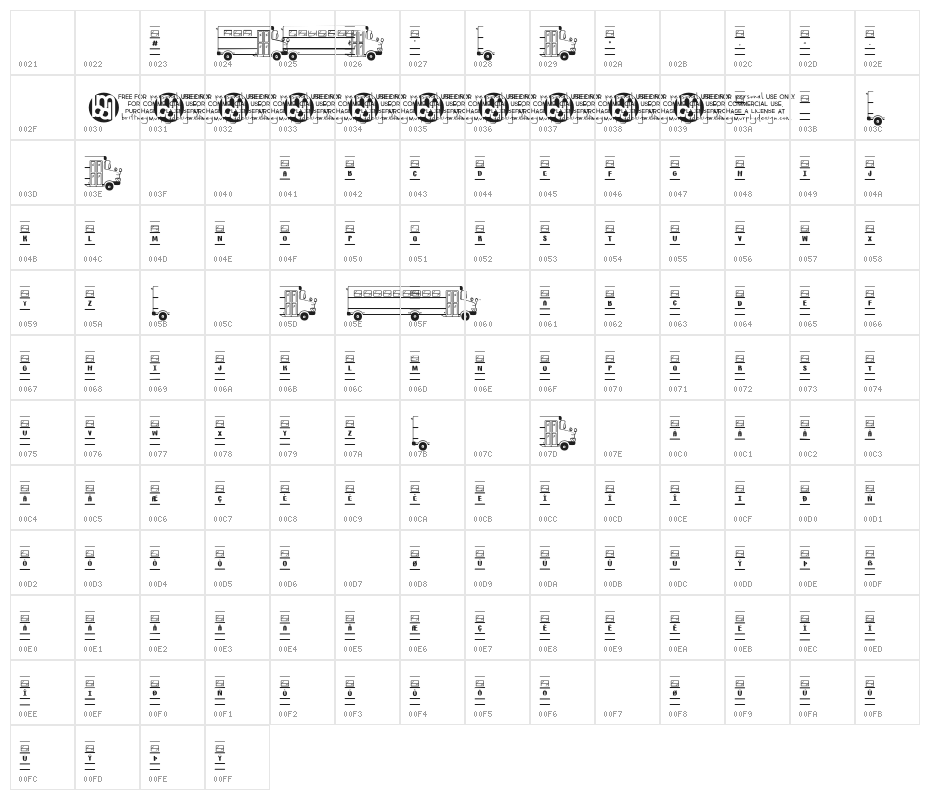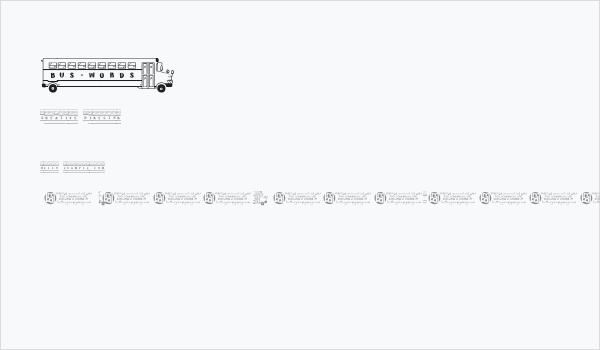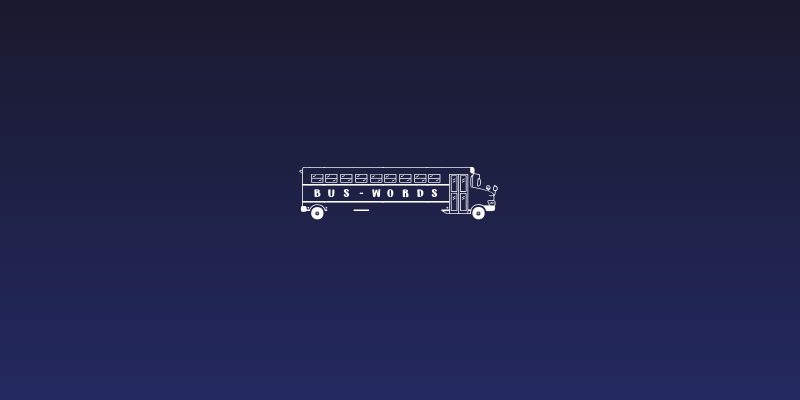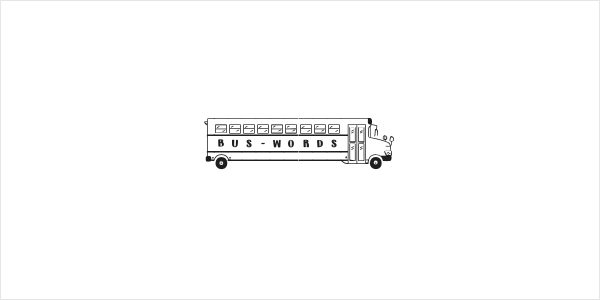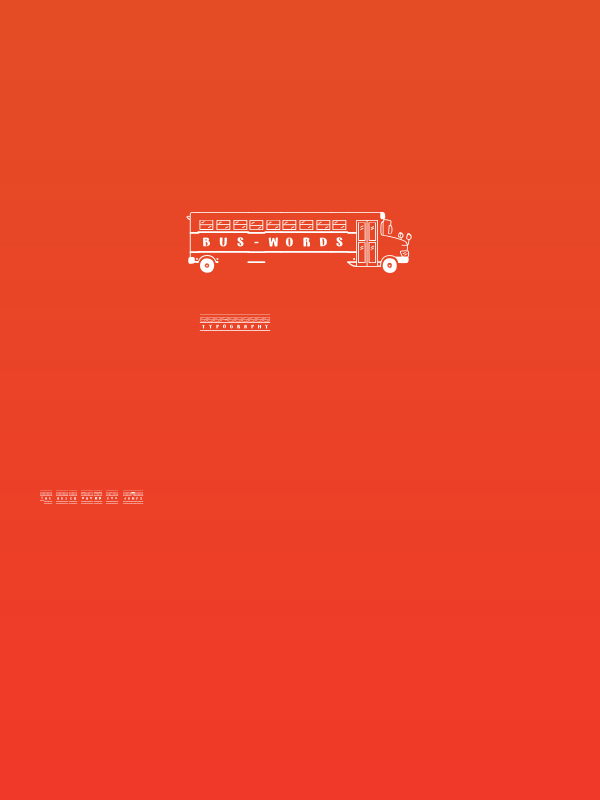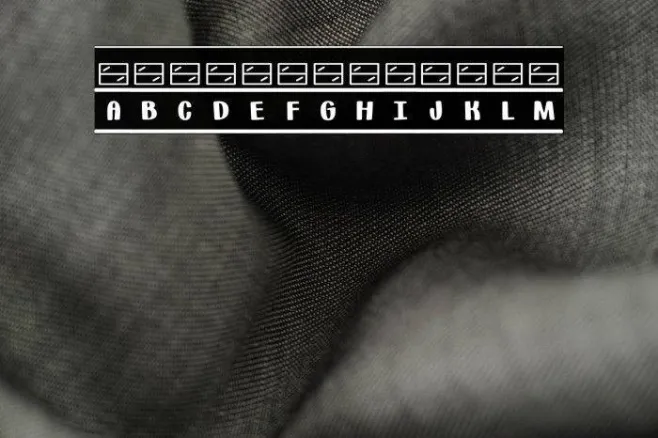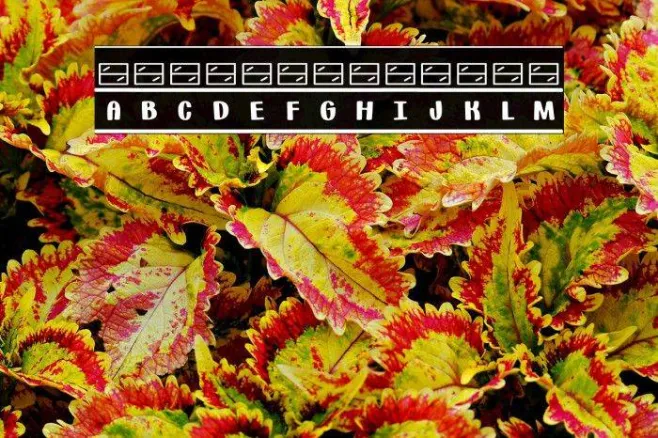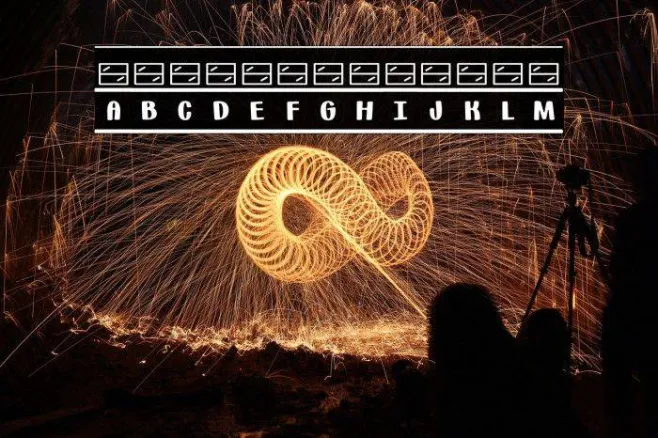
(Bus-words) Font
(Bus-words) Description
This font features a bold and playful design, reminiscent of school bus signage. The characters are uppercase and have a blocky, geometric style with rounded edges, creating a friendly and approachable appearance. The letters are evenly spaced and maintain a consistent height, contributing to a clean and organized look. The font is ideal for projects that require a sense of fun and nostalgia, such as children's books, educational materials, or playful branding. Its boldness ensures high readability, making it suitable for headlines and signage.
| Overall Style | Playful, Nostalgic |
| Use Case | Headlines, Signage, Children's materials |
| Proposed Projects | Children's books, educational materials, playful branding, headlines, signage. |